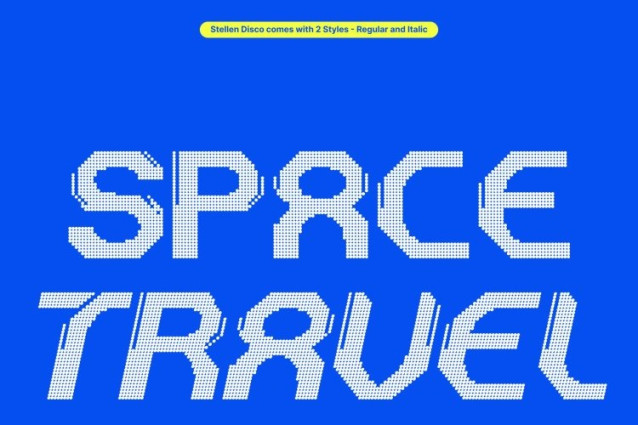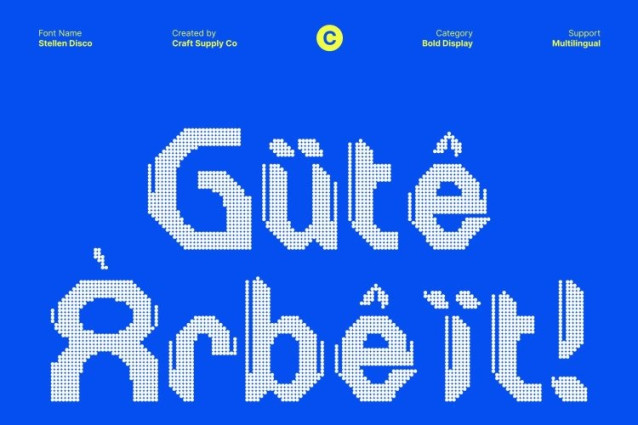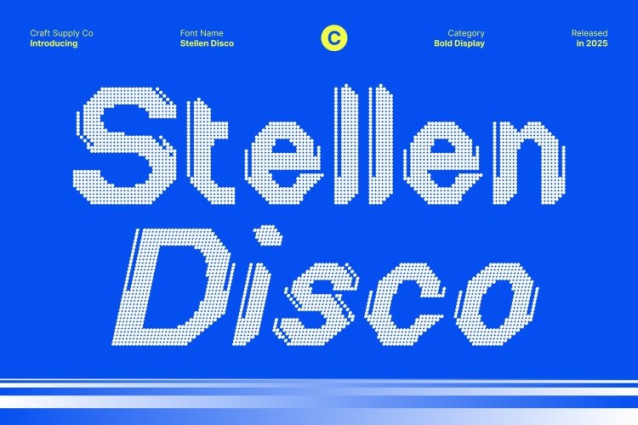
Stellen Disco Font
Stellen Disco Font This is a techno-inspired sans serif font designed to radiate modern energy and striking visual impact. Its clean, geometric letterforms convey precision and contemporary style, while the bold weight ensures every character stands out with confidence. This font perfectly balances futuristic aesthetics with display-ready readability, making it ideal for high-impact design projects.
Bold Forms for Maximum Visual Presence
The strong, structured shapes of give it a commanding presence in any layout. Its bold construction enhances legibility and creates dynamic compositions that immediately capture attention. The combination of geometric precision and assertive letterforms ensures your text makes a powerful statement.
Disco Effect for Glamour and Dynamic Energy
The integrated disco effect adds sparkle and subtle vibration to each letter, amplifying the font’s futuristic glamour. This energetic touch gives designs a lively, sophisticated, and visually engaging quality, making them stand out in both digital and print applications.
Perfect for Branding, Logos, and Poster Designs
This font excels in branding, logos, posters, digital campaigns, and creative display projects. Whether crafting futuristic brand identities, eye-catching event graphics, or bold editorial layouts, this font combines modern techno style with glamorous disco flair, ensuring every design is fresh, energetic, and visually striking.